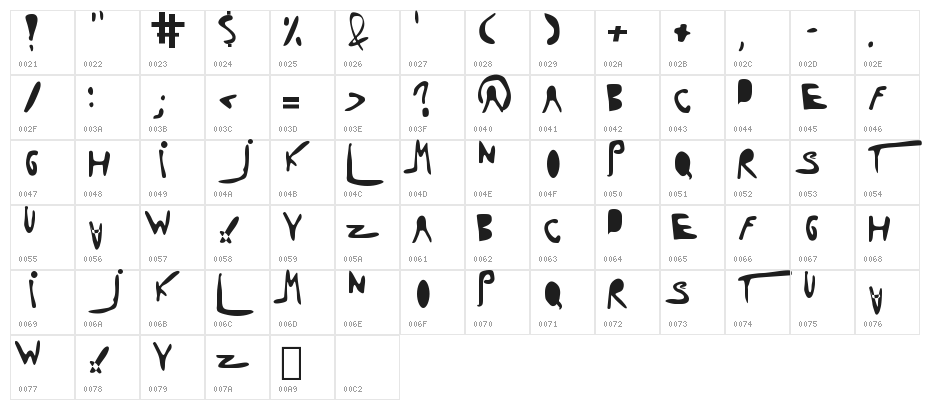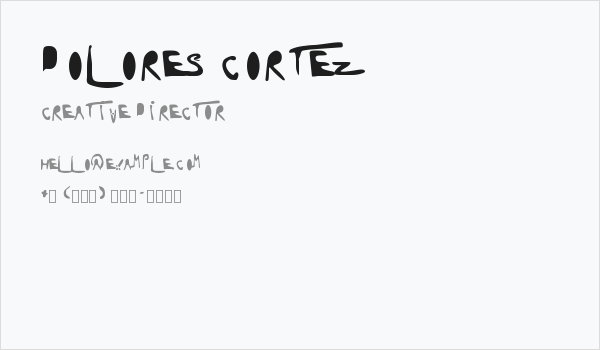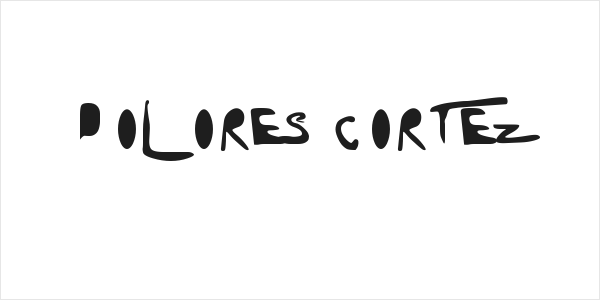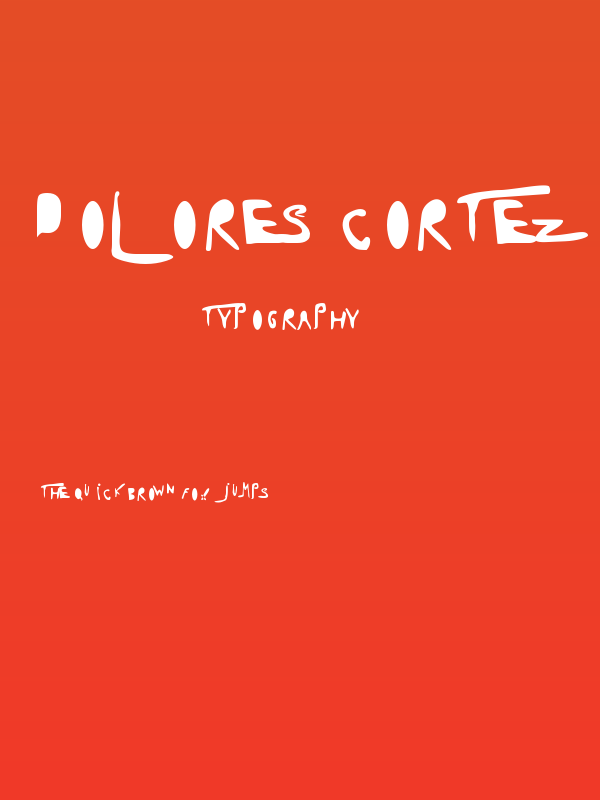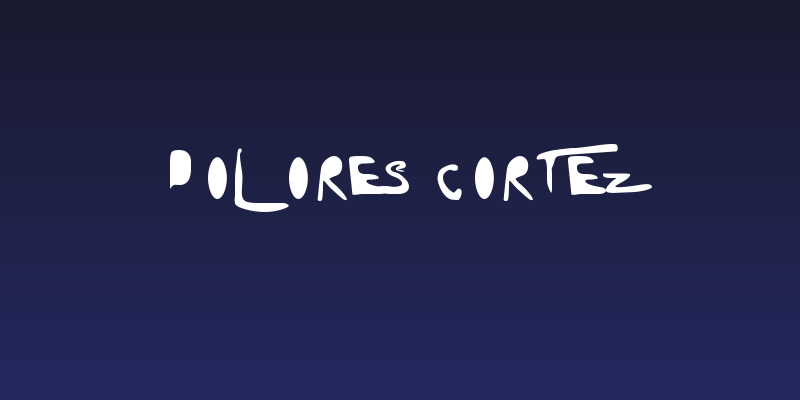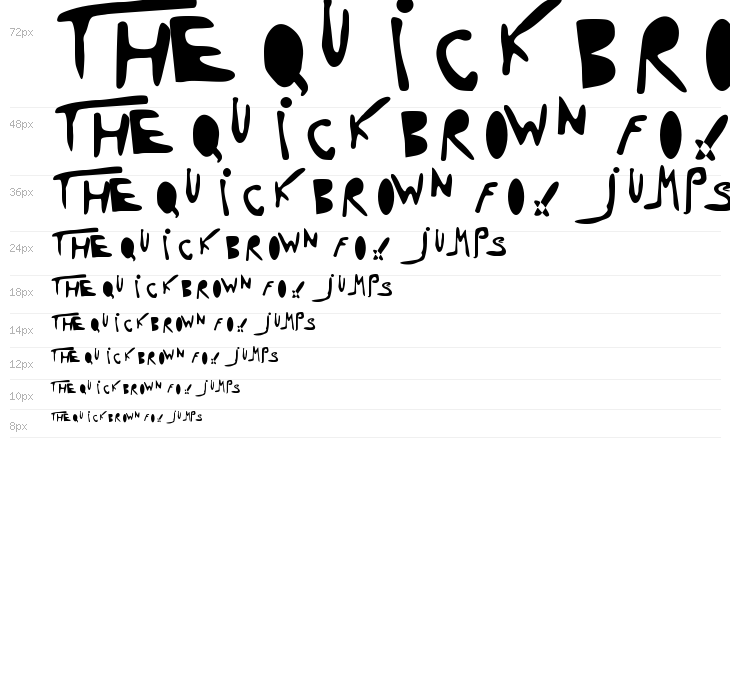
Dolores Cortez Font
Dolores Cortez Description
This font exhibits a playful and artistic style, characterized by its irregular and whimsical letterforms. The uppercase and lowercase letters have a hand-drawn appearance, with varying stroke thicknesses that add a dynamic and lively feel. The characters are slightly tilted and uneven, contributing to a casual and informal aesthetic. The special characters, such as punctuation marks and symbols, maintain the same quirky and creative design, enhancing the overall uniqueness of the font. This font is suitable for projects that require a fun and engaging visual element, making it ideal for creative branding, children's books, or artistic posters.
| Proposed Projects | Ideal for creative branding, children's books, artistic posters, and playful designs. |